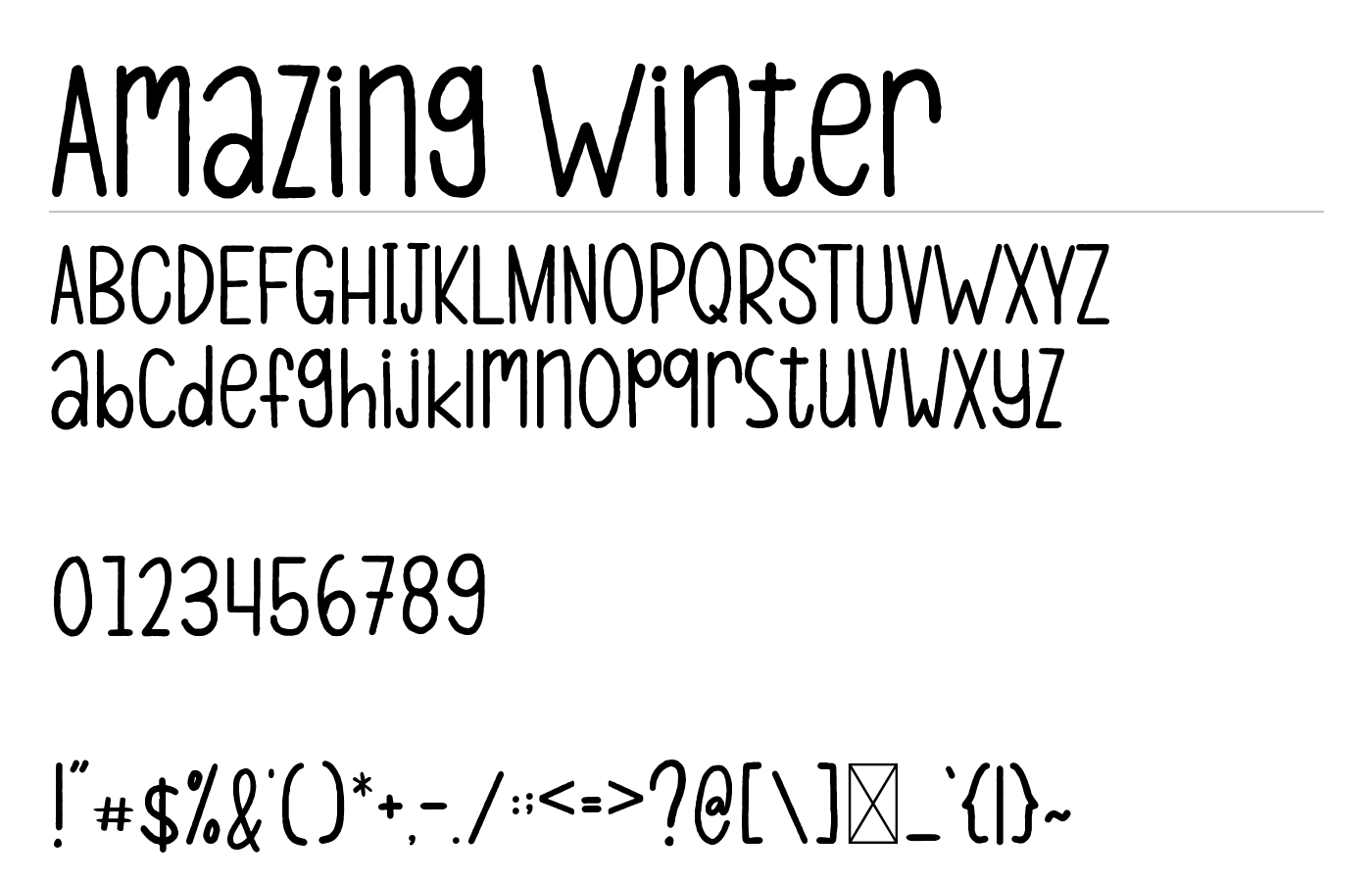
Amazing Winter Font is a playful, hand-drawn sans serif typeface with a narrow, tall structure and casual, natural strokes that give it a friendly, whimsical feel. Its uneven lines and quirky letterforms make it ideal for informal, youthful designs like holiday cards, children's books, and creative branding where a warm, approachable personality is desired. This font works best in headlines and display contexts where its distinct style can stand out and add charm.
Amazing Winter Font
About Amazing Winter Font
| Font family | Amazing Winter Font |
| Designer | Dian Mariesta |